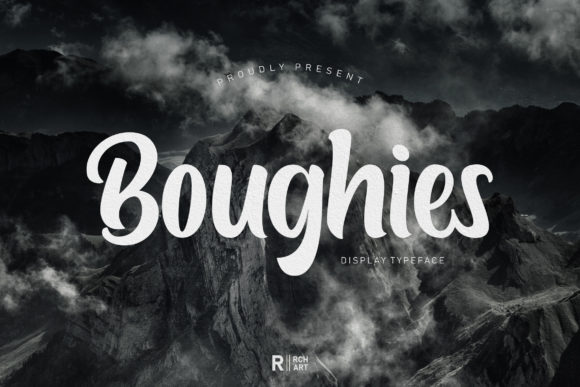
Boughies Font
Boughies Font: The Epitome of Daring and Dazzling Display Typefaces
Embark on a typographic odyssey with Boughies, a font that radiates boldness and exudes panache. Its audacious nature captivates the eyes, making your designs dance with vibrance and allure. With this font's audacity, your designs will sing with an energy that is impossible to ignore, while its versatility allows it to accentuate any design with a touch of brilliance.
Cleave Through the Ordinary with Boughies' Unwavering Strength
Boughies is a font that shatters the walls of creative stagnation. Its solid, robust structure exudes a level of strength that will leave you in a state of creative invigoration. Imagine your designs taking on a life of their own, with Boughies at the heart, breathing in a surge of fresh energy and injecting a dose of unadulterated charisma.
Create an Enthralling Tapestry of Styles with Boughies' Diverse Charms
The Boughies Font family is not merely a collection of letters; it is an exquisite tapestry of styles that grants you the creative freedom to explore and express your ideas. The font flourishes across a spectrum of creative possibilities, allowing you to weave your words into a magnificent visual masterpiece. From elegant invitations to spellbinding posters, the creative possibilities know no bounds when you wield the power of Boughies.
Innovate with Boughies and Watch Your Designs Transcend
With Boughies at your creative disposal, you unlock a realm of typographical possibilities. It's a font that caters to your creative whims and fancies, beckoning you to break free from the banality of ordinary type and forge a new era of design innovation. And as if its inherent brilliance were not enough, Boughies is backed by the talents of its creator, Rochart, an artist known for producing wonders in the realm of letter-art.